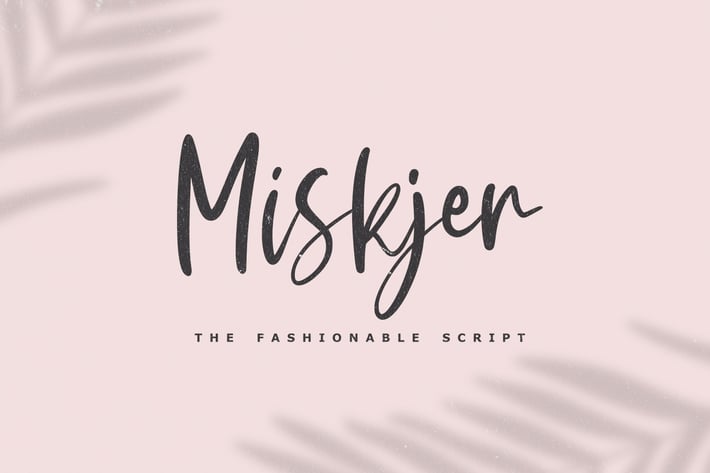
Miskjer - The Fashionable Script Font
Introducing Miskjer - The Fashionable Script Font. It comes with an elegant and feminine style which is perfect to make any design stand out! This font is perfect for branding, wedding invites, magazines, mugs, business cards, quotes, posters, and more.
Miskjer Type Features:
- Numerals & Punctuations
- Suitable for Headlines, Logotypes, Signs, Posters, Letterhead, T-Shirt and many more.
- Support Western Europe Language